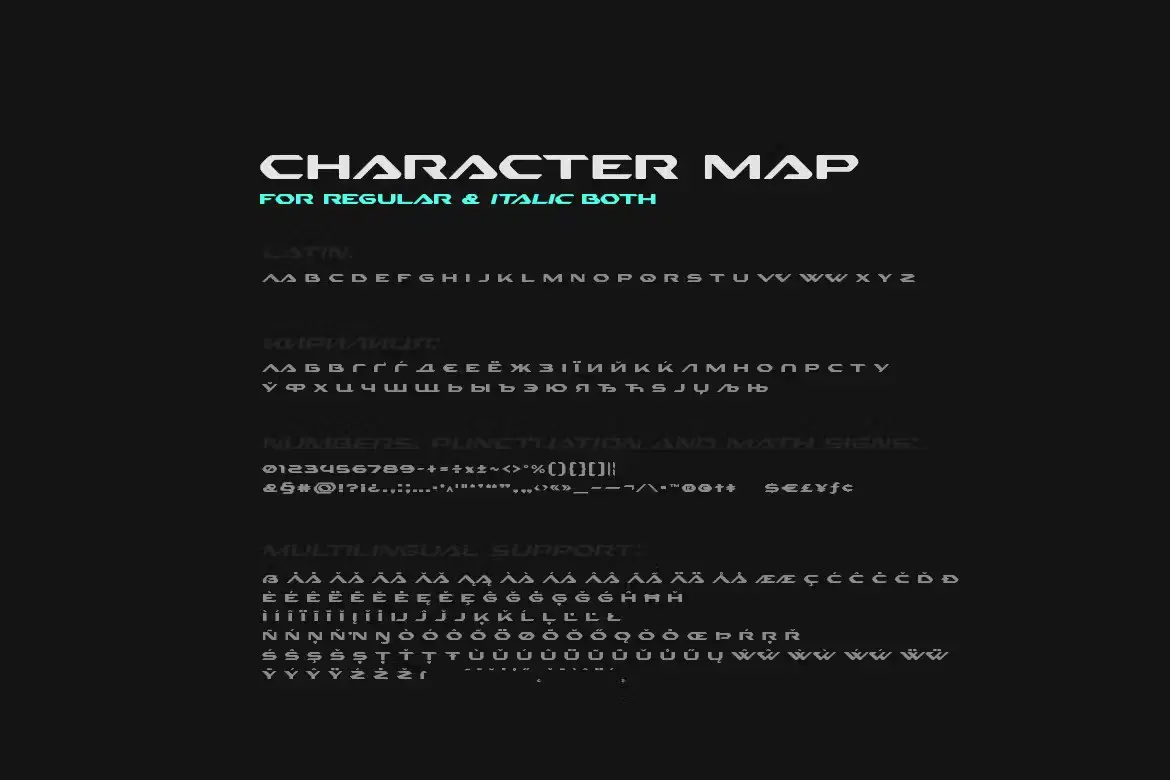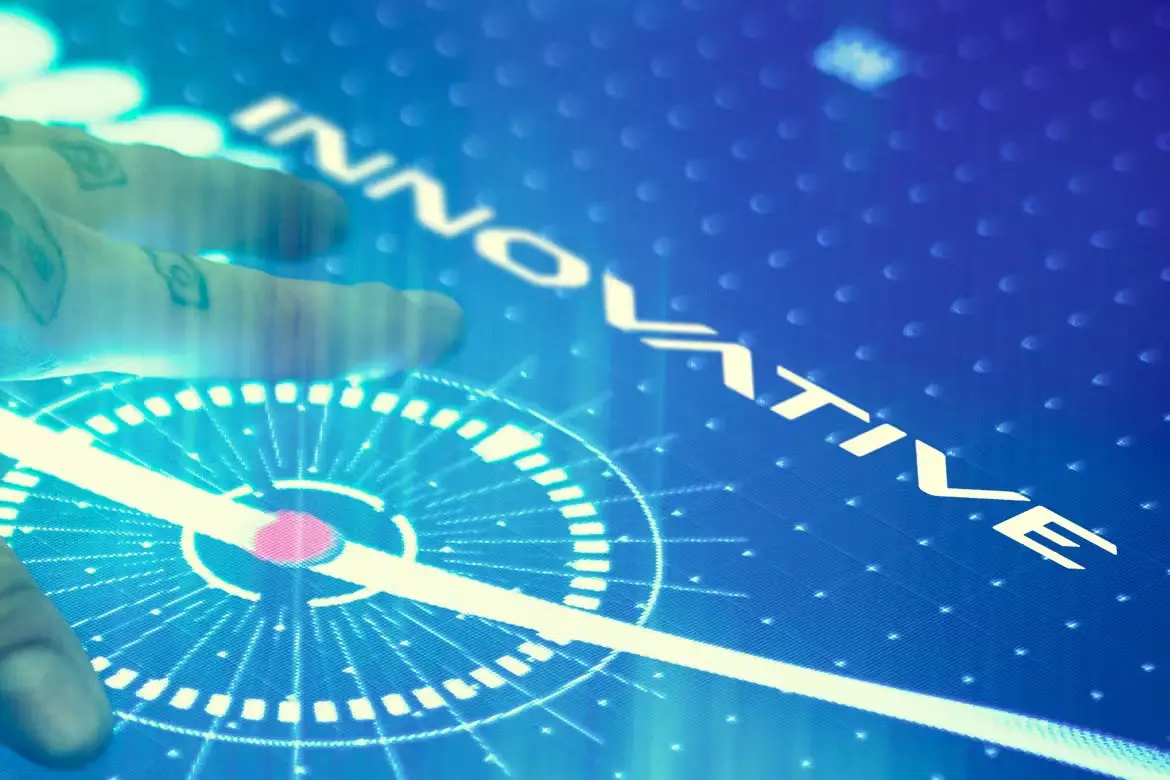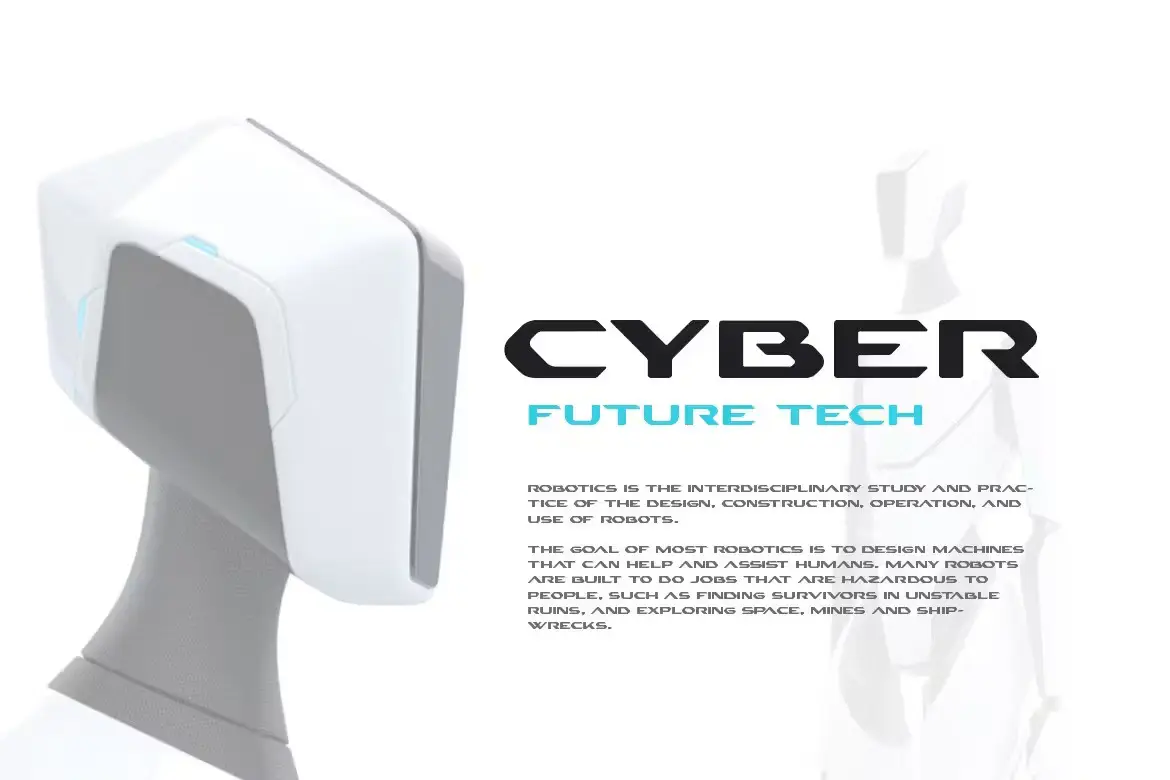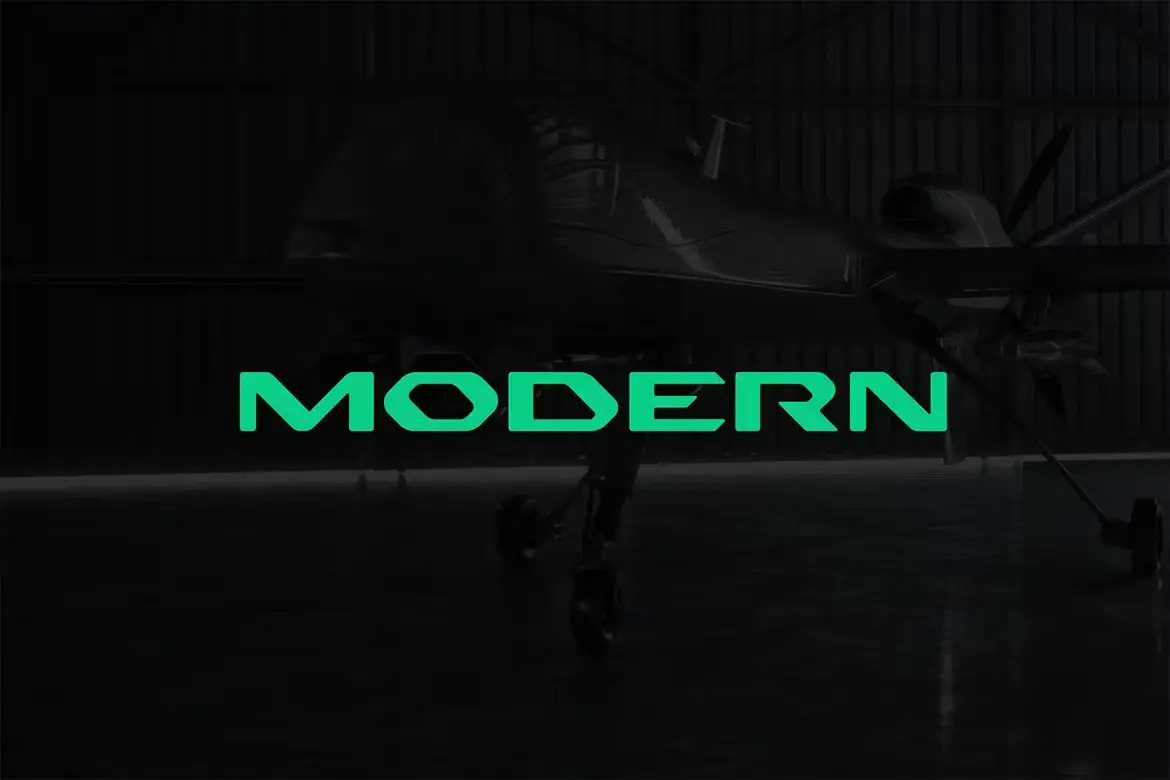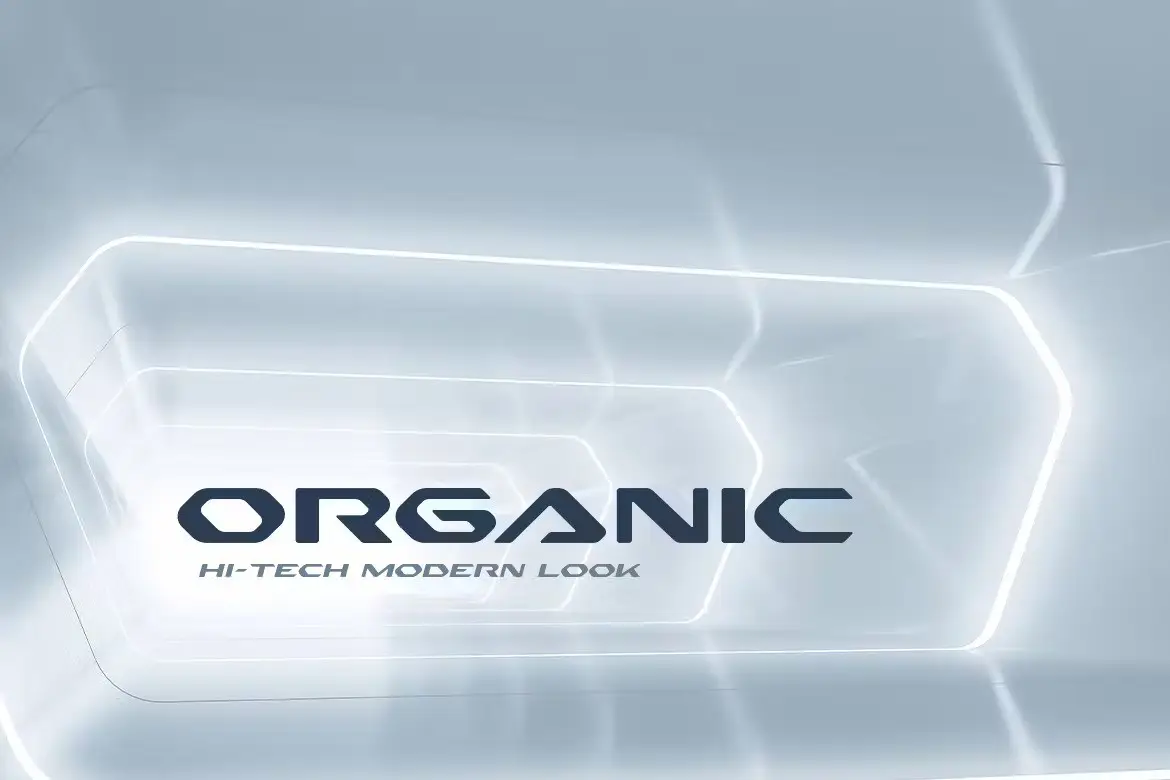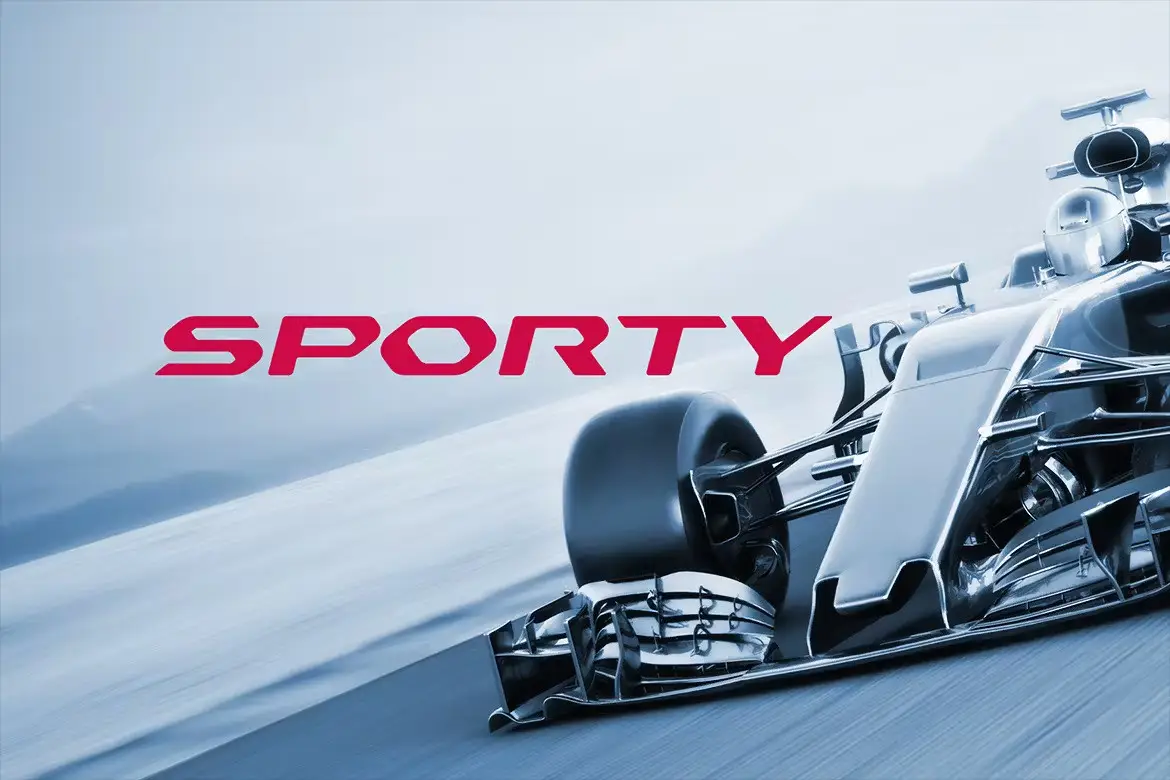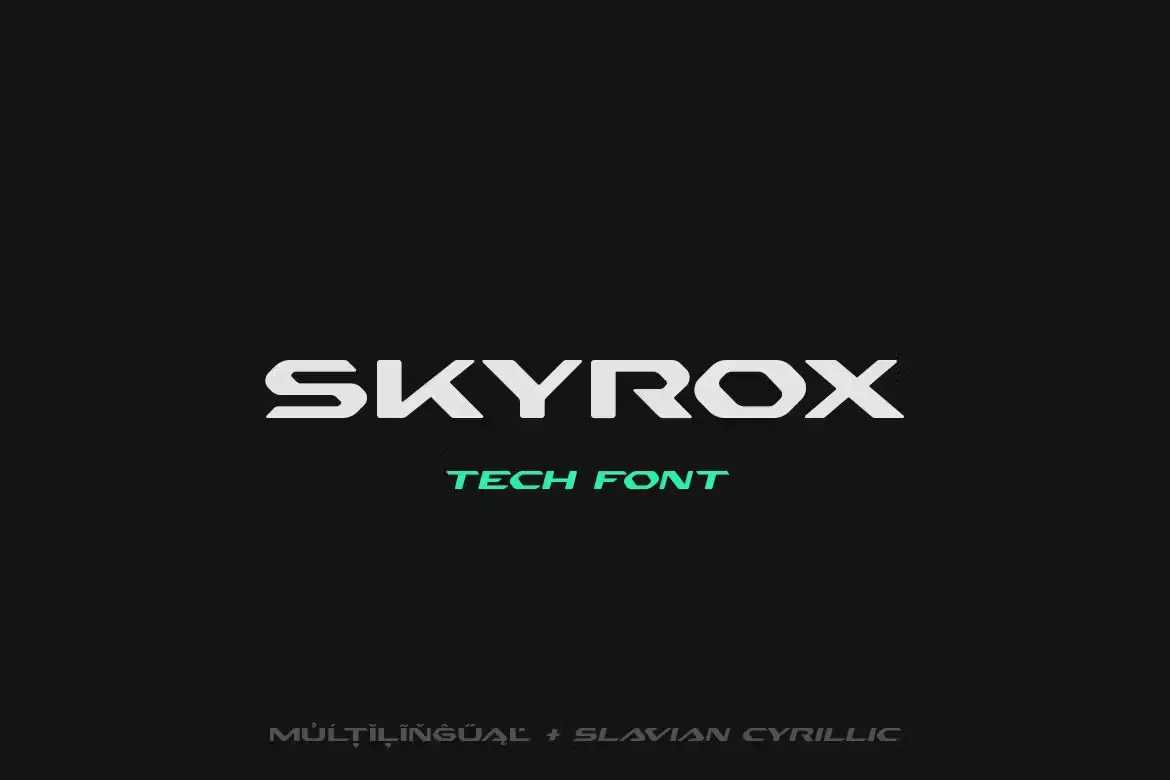
Skyrox Font – Futuristic Typographic Elegance
Introducing the Skyrox Font, a modern typeface that embodies a futuristic and high-tech aesthetic. Perfect for projects that require a touch of innovation, this font is designed to make your text stand out in any digital or print medium.
The Skyrox Font family includes two distinct styles: Regular and Italic. Whether you need a striking header or readable body text, Skyrox delivers versatility and visual appeal. This font is ideal for themes related to robots, androids, virtual reality, space exploration, and sports, among others.
- ✅ Modern Design → Creates a sleek, futuristic atmosphere in your designs.
- ✅ Two Styles → Includes both Regular and Italic for diverse usage.
- ✅ Multilingual Support → Compatible with LatinPro and Cyrillic scripts, covering a wide range of languages.
- ✅ Versatile Usage → Perfect for headers and body text in tech, space, and sports projects.
Why Choose Skyrox Font
The Skyrox Font stands out due to its unique blend of modern aesthetics and functionality. It is trusted by designers and developers alike for projects that demand a futuristic touch. With its multilingual capabilities, you can reach a broader audience while maintaining a cohesive design language.
| Styles | Regular, Italic |
| Language Support | Multilingual (LatinPro & Cyrillic) |
- Graphic Designers
- Web Developers
- Futuristic Themed Projects
- Virtual Reality Applications
- Sports Branding